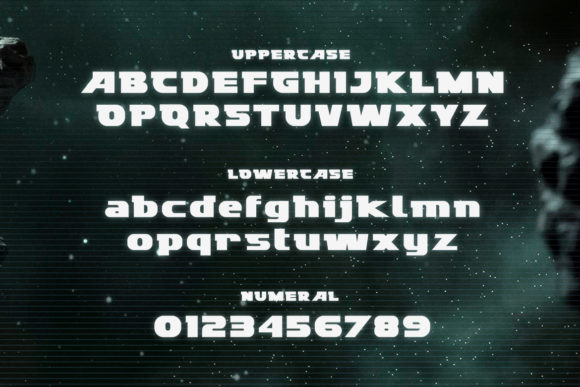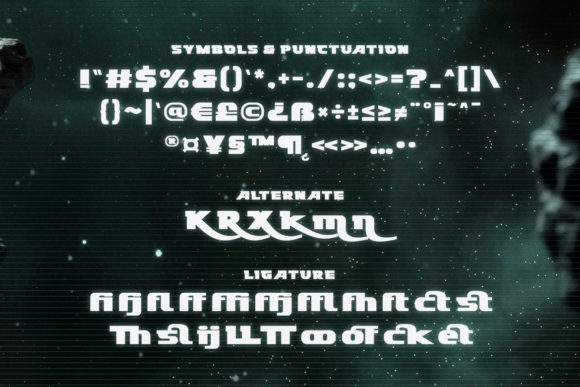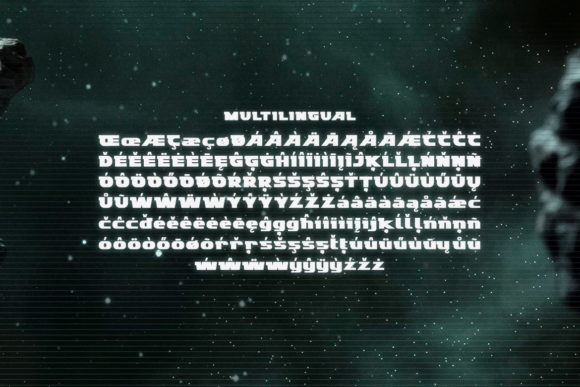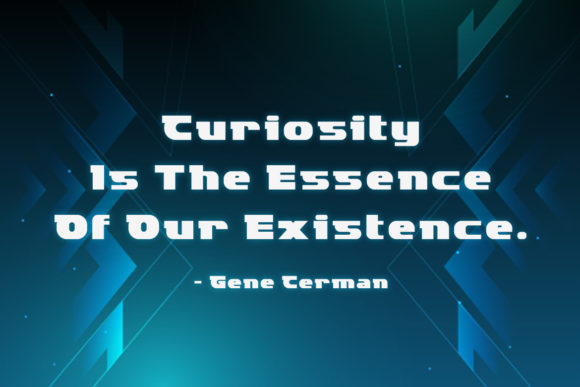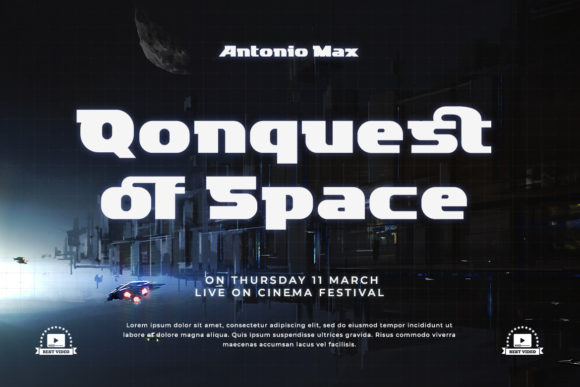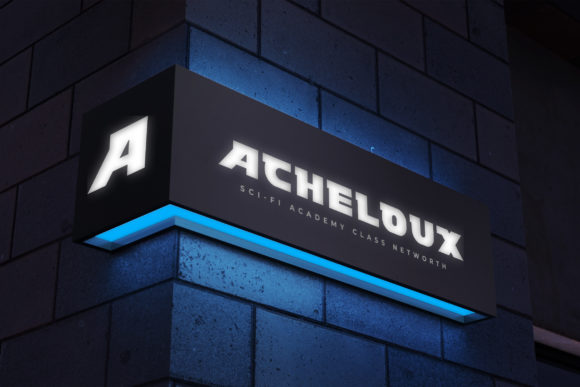
Introduction to Last Mission Font
Have you ever stared at a blank canvas, mind racing with ideas, waiting for the perfect spark to ignite your creative project? For designers, this moment is all too familiar. It’s the moment when everything comes together – the concept, the design, and the perfect font to bring it all to life. And that’s exactly where the Last Mission Font comes in – a high-quality, futuristic display font that’s about to revolutionize the way you approach your next design project.
Whether you’re working on a poster, a game, or any other creative endeavor that requires a techno look, the Last Mission Font is the perfect design resource. With its PUA-encoded capabilities, accessing all glyphs and swashes is a breeze, making it a valuable asset for designers looking to elevate their work to the next level.
Last Mission Font
- High-quality font design ideal for creative projects, such as video games, animations, and graphic novels.
- Transparent background, allowing for seamless integration into various design environments.
- Unique characteristics include a bold, futuristic aesthetic and a wide range of customizable options.
- Perfect for use in digital design, including video games, apps, and websites, due to its high-quality and modern design.
Honest Review: Last Mission Font
I recently stumbled upon the Last Mission Font and I’m excited to share my thoughts on this design resource. As a designer, I’m always on the lookout for high-quality fonts that can elevate my creative projects.
The Last Mission Font is a great addition to any design arsenal. Here are some of its standout features:
- High-quality design with intricate details
- Transparent background, making it perfect for overlaying on images or videos
- May not be suitable for small-scale text due to its complex design
- Limited character set, which may require additional font pairing for comprehensive use
Overall, I’m impressed with the Last Mission Font and its potential to add a unique touch to creative projects. While it may have some limitations, its high-quality design and transparent background make it a valuable resource for designers. If you’re looking for a free design resource to elevate your work, the Last Mission Font is definitely worth checking out.